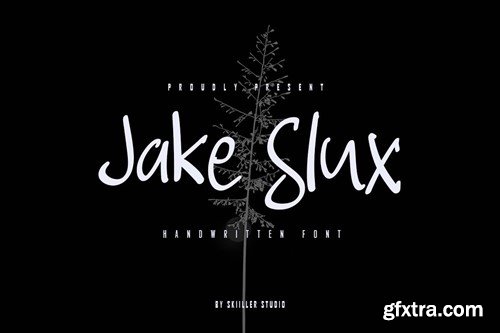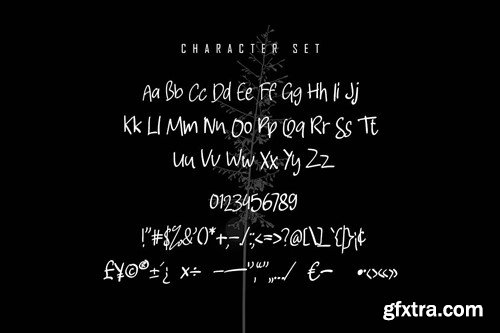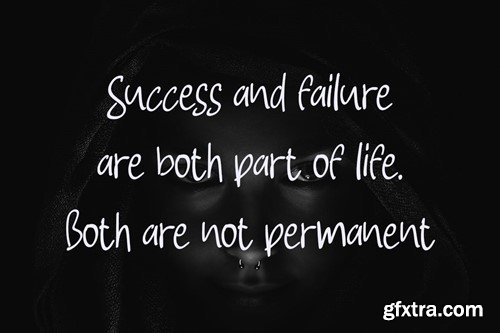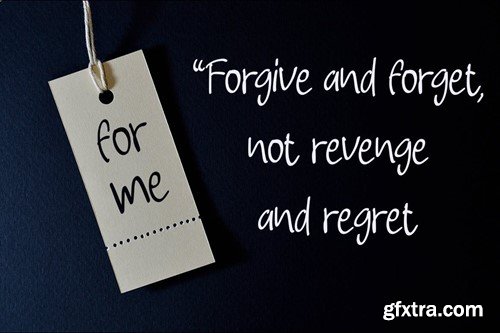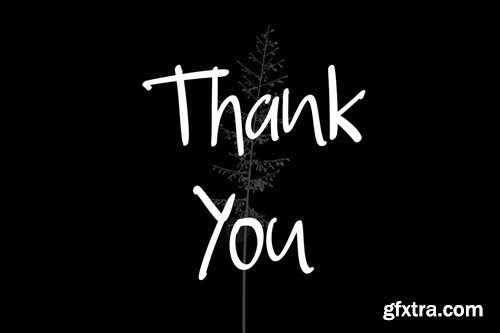
杰克·斯卢克斯 - 手写体字体 2CJVWE8
Jake Slux - Handwritten Font 2CJVWE8
Jake Slux - Handwritten Font
Jake Slux is a modern and brushed handwritten font, crafted to give your headlines and logotype projects a stylish touch. This font reads as strong, confident, and dynamic and can add tons of urban character to your designs.